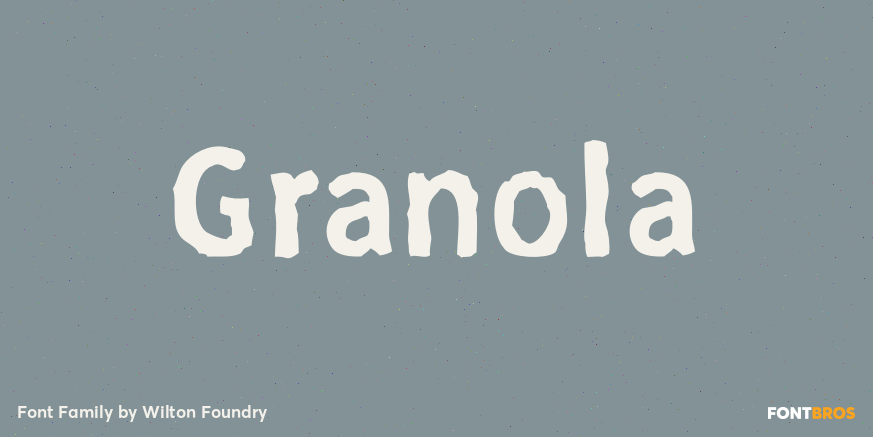
HomeFont BrosDistressedGranola DistressedSans Serif Granola FacebookXPinterestWhatsApp 1 of 1 About Granola is a completely hand-drawn font, for when you need more than a regular sans serif to express random granularity. It works extremely well for book text when used in smaller sizes from 14pt down.  DOWNLOAD ON FONT BROSThis font is sold and delivered by Font Bros. Font Canyon may earn a commission if you buy through this link. People also explored Pollard Script Font Gaby Font Sanibel Font Snowflakes Font Good Doggie Lf Font Beautiful Barbies Font Unicorn Dreams Font Apricotsy Font The Future Font 227 0 TagsGranolaGranola Font Previous articleBrusselsNext articleAmericain LEAVE A REPLY Cancel reply Comment: Please enter your comment! Name:* Please enter your name here Email:* You have entered an incorrect email address! Please enter your email address here Website: Save my name, email, and website in this browser for the next time I comment. Personal Use Free Rozalyn Personal Use Free Read more about this font Butter Belly Personal Use Free Read more about this font Bosk Personal Use Free Read more about this font Amellis Path Personal Use Free Read more about this font BLOG How to Install and Use Fonts on Windows, macOS, and Web Projects How to Install and Use Fonts on Windows, macOS, and Web Projects Fonts are a crucial part of design and branding. Whether you’re designing a... 5 Fonts That Will Dominate Design Trends in 2026 Top 10 Handwritten Fonts That Elevate Your Designs Elegant Wedding Invitation Fonts – Handwritten & Script Fonts